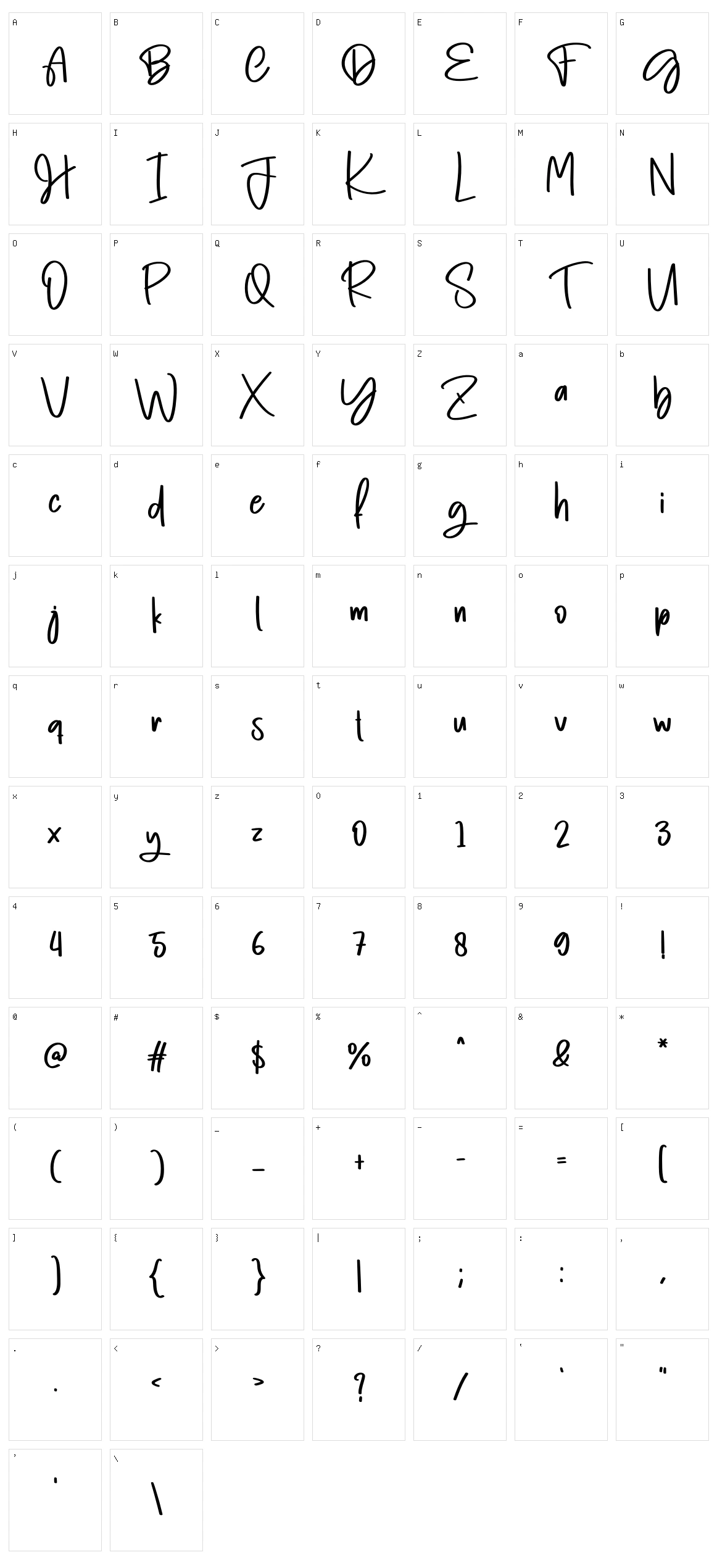
The free font Magazine is carefully designed by Scratchones, showcasing a thoughtful balance of creativity and usability and falls under the Script font style. When you download the ZIP file, it contains only 116.34 KB of font files, making it lightweight and quick to download. Please review the license details below to understand permitted usage and distribution rights. If license information is not available, we recommend using this font for personal projects only or contacting the author directly for commercial usage permissions.